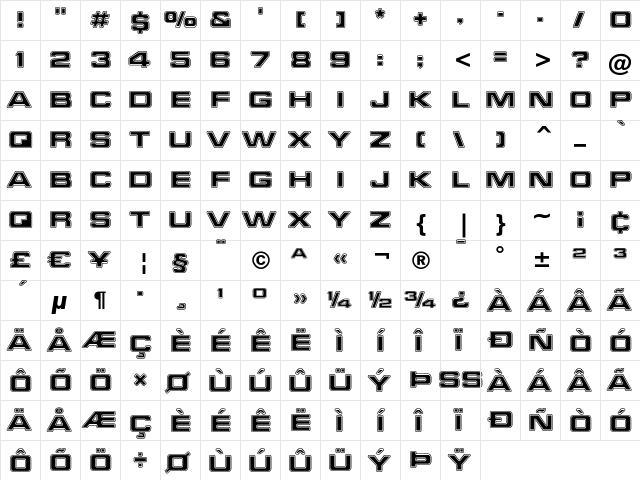
Millenium Bold Extended
Design Context for Millenium Typeface
Millenium offers clean, dependable letterforms without strong stylistic allegiance, making it a practical choice for designers who need flexibility. Its bold stroke weight gives it real presence on the page.